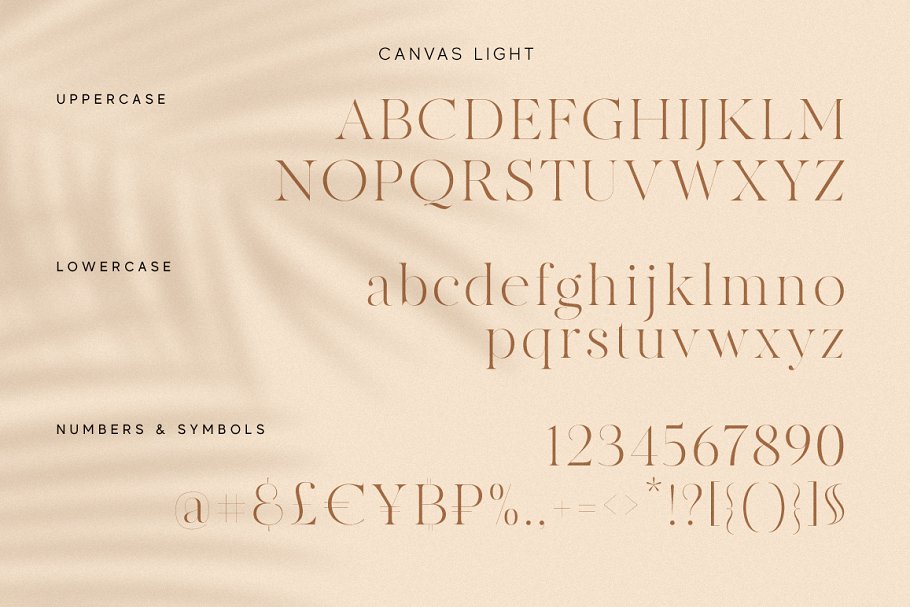
About the MADE Canvas Font
MADE Canvas is on sale for 32% Off from Oct 1 through Oct 31, 2022, Regular price $25, MADE Canvas is a family of high-contrast serif fonts, The Canvas is a modern style Didoni, The typefamily includes 3 weights: Light, Regular and Black, The hairlines in all of the fonts are very thin, The Canvas will perfect for many project: fashion, magazines, logo, branding, photography, wedding invitations, quotes, blog header, poster, advertisements, etc